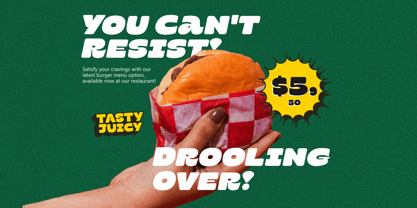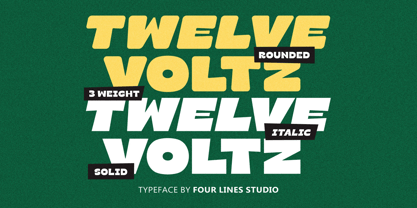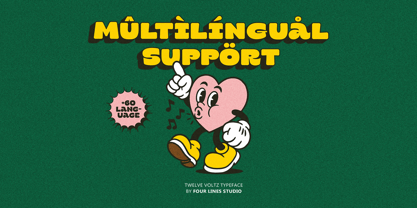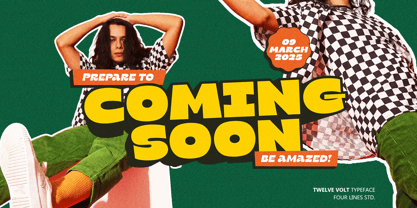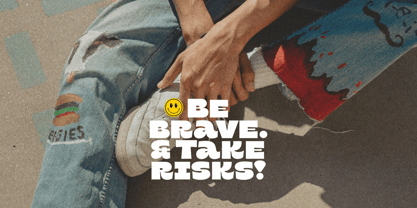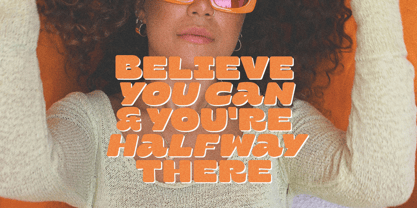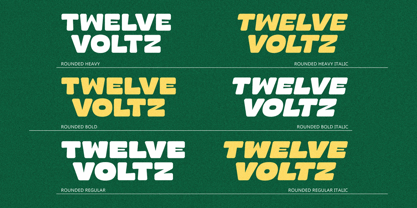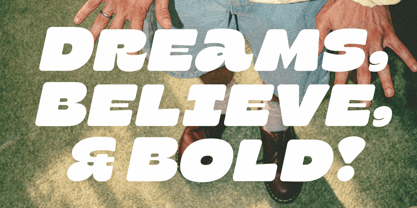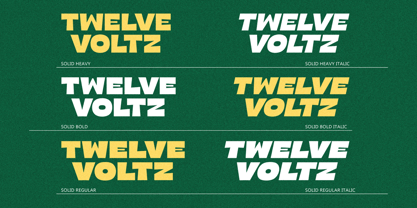
Twelve Voltz
by Four Lines Std
The Twelve Voltz Font Family was designed by Zain Fahroni and published by Four Lines Std. Twelve Voltz contains 12 styles and family package options. More about this family
Twelve Voltz is a bold display typeface designed for attention-grabbing visuals and high-impact typography. It comes in two distinct styles:
• Solid, with sharp, straight edges
• Rounded, with smooth, soft corners
Each style includes 3 weights — Regular, Bold, and Heavy, along with matching Italic versions, for a total of 12 fonts in the family.
Twelve Voltz is ideal for branding, headlines, posters, packaging, apparel, and various creative projects that benefit from strong visual presence. Its geometric and slightly quirky letterforms bring a balance of structure and personality.
Designed with versatility in mind, Twelve Voltz works great across both digital and print media, especially in applications where bold character matters most.
Designers: Zain Fahroni
Foundry: Four Lines Std